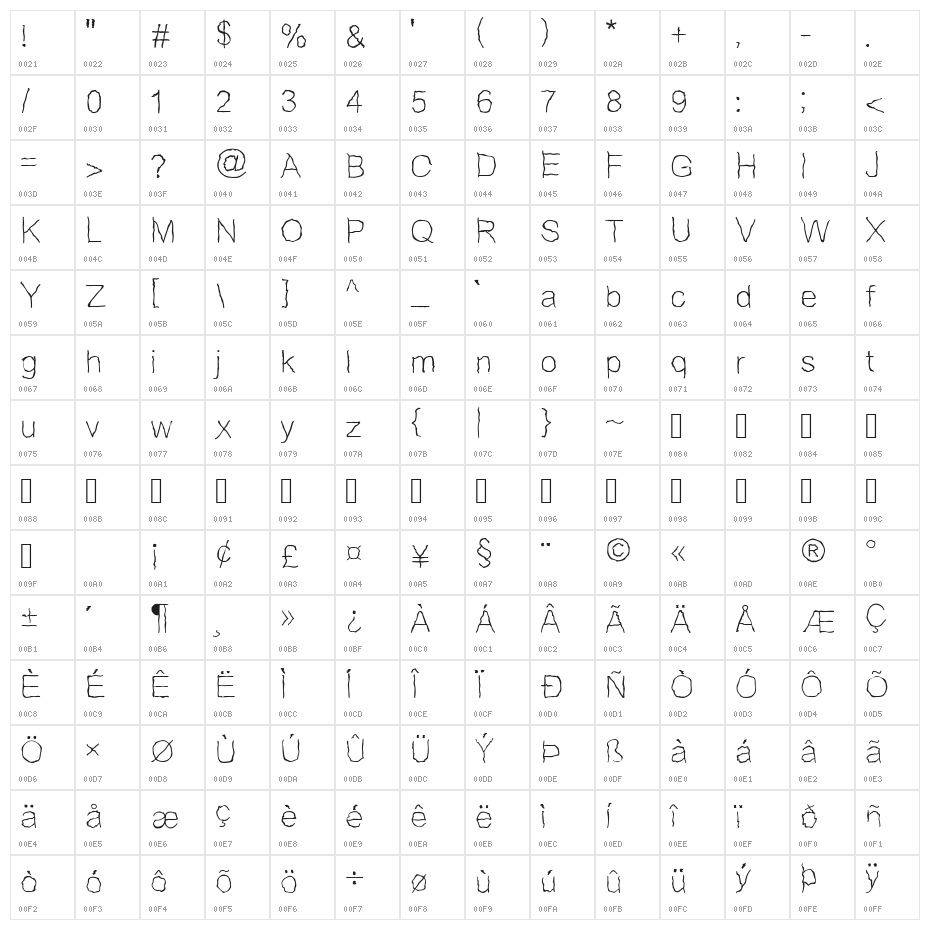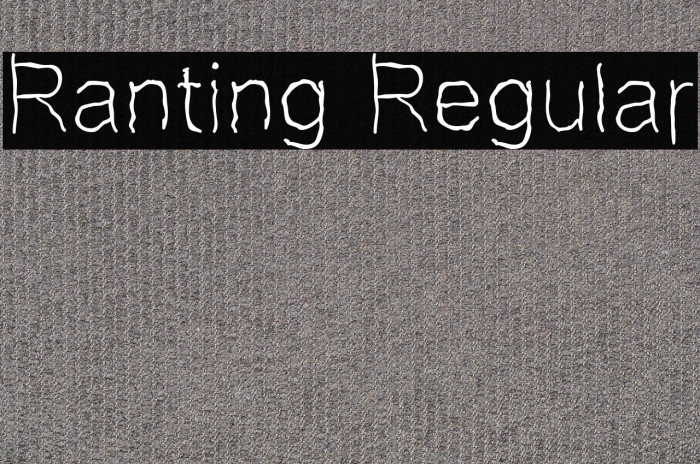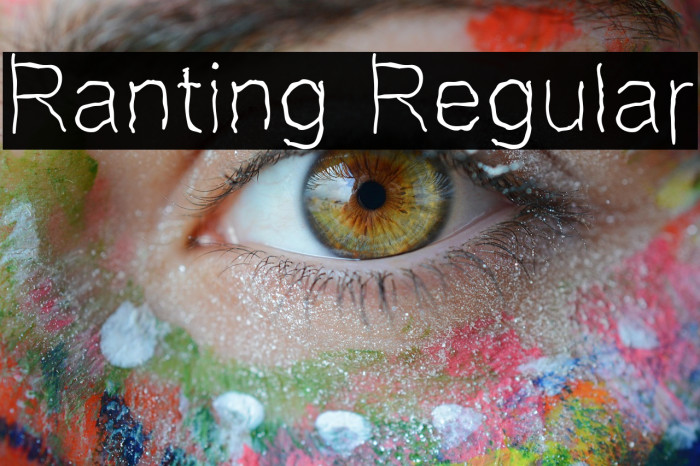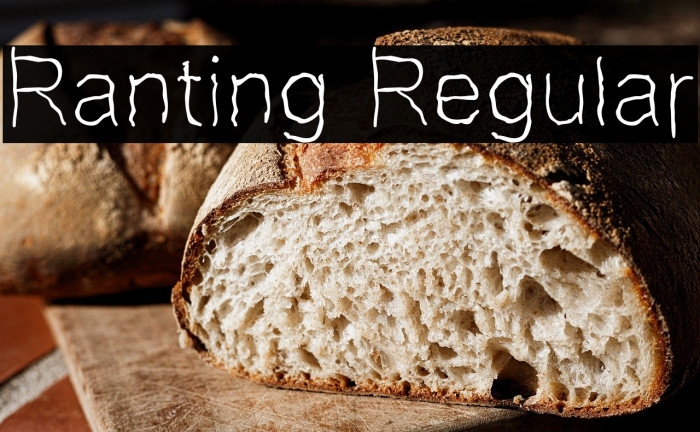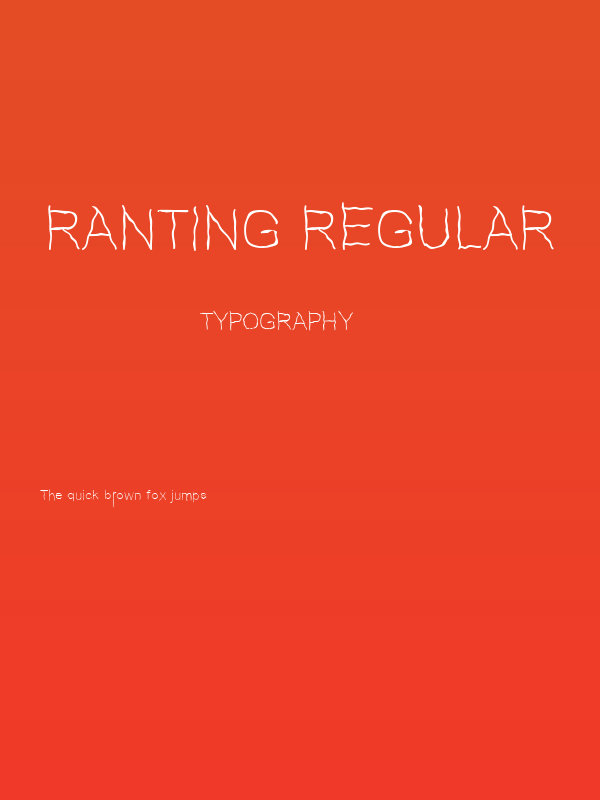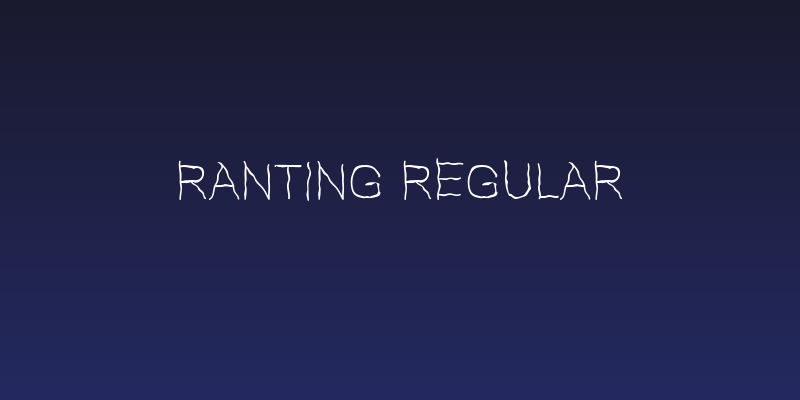
Ranting Regular Font
Ranting Regular Description
This font features a unique, hand-drawn appearance with irregular, organic lines that give it a raw and expressive character. The strokes are uneven, mimicking the look of ink or paint applied with a brush, which adds a sense of movement and dynamism. The uppercase and lowercase letters maintain a consistent style, with slightly exaggerated curves and angles that enhance its artistic flair. Numbers and special characters follow the same design ethos, ensuring a cohesive look across all elements. This font's distinctive style makes it stand out, perfect for projects that require a touch of creativity and individuality.
| Proposed Projects | Ideal for artistic projects, posters, album covers, and creative branding. |